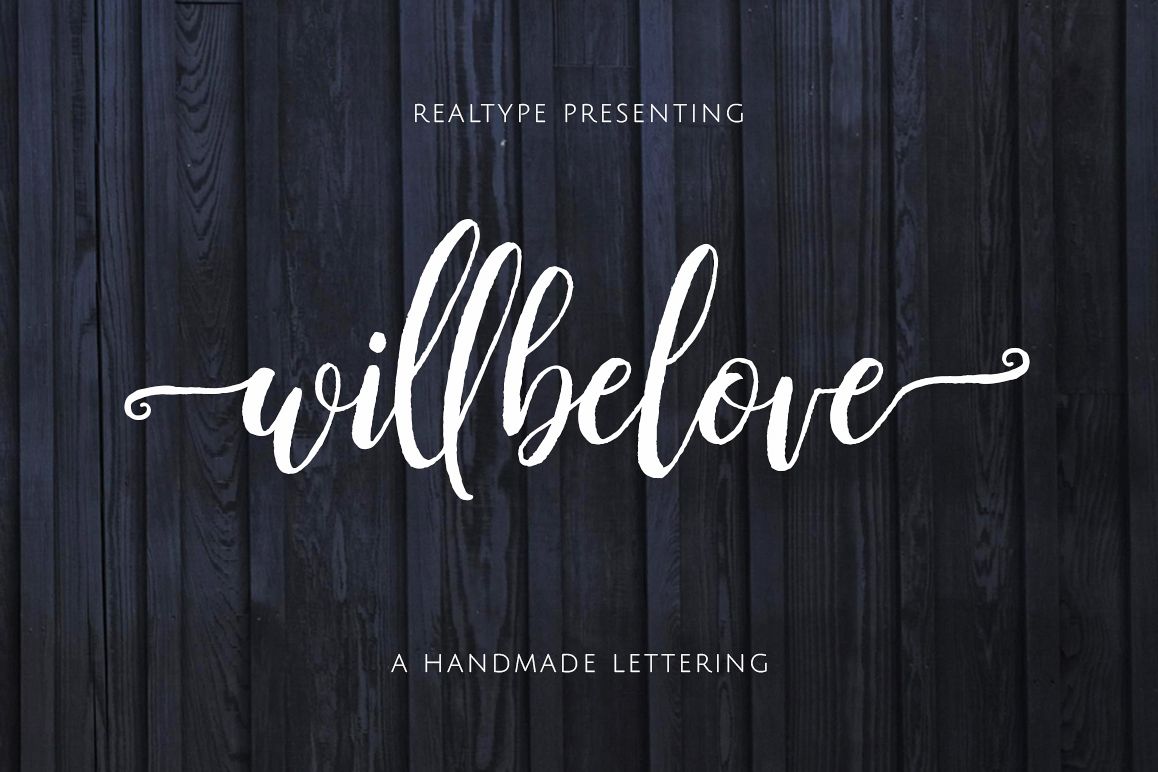
willbelove
willbelove-Regular
Willbelove is a natural brush script typeface with swashes. This font will give your designs that fresh, edgy
feel to it and will look lovely on quotes, fashion magazines, logo's & any other awesome projects.
Try mixing your design with this font. Feel free to pair with the san serif or serif typeface in your job ideas.
Find interesting layouts to compliment your project.